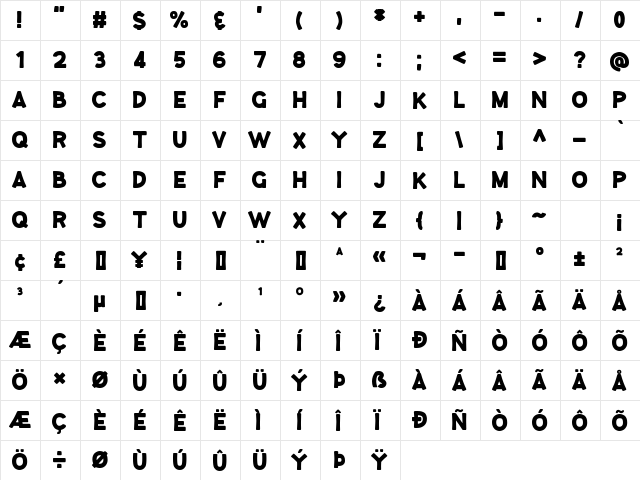
Gooseberry Juice Regular
Design Context for Gooseberry Juice Typeface
Gooseberry Juice offers clean, dependable letterforms without strong stylistic allegiance, making it a practical choice for designers who need flexibility.